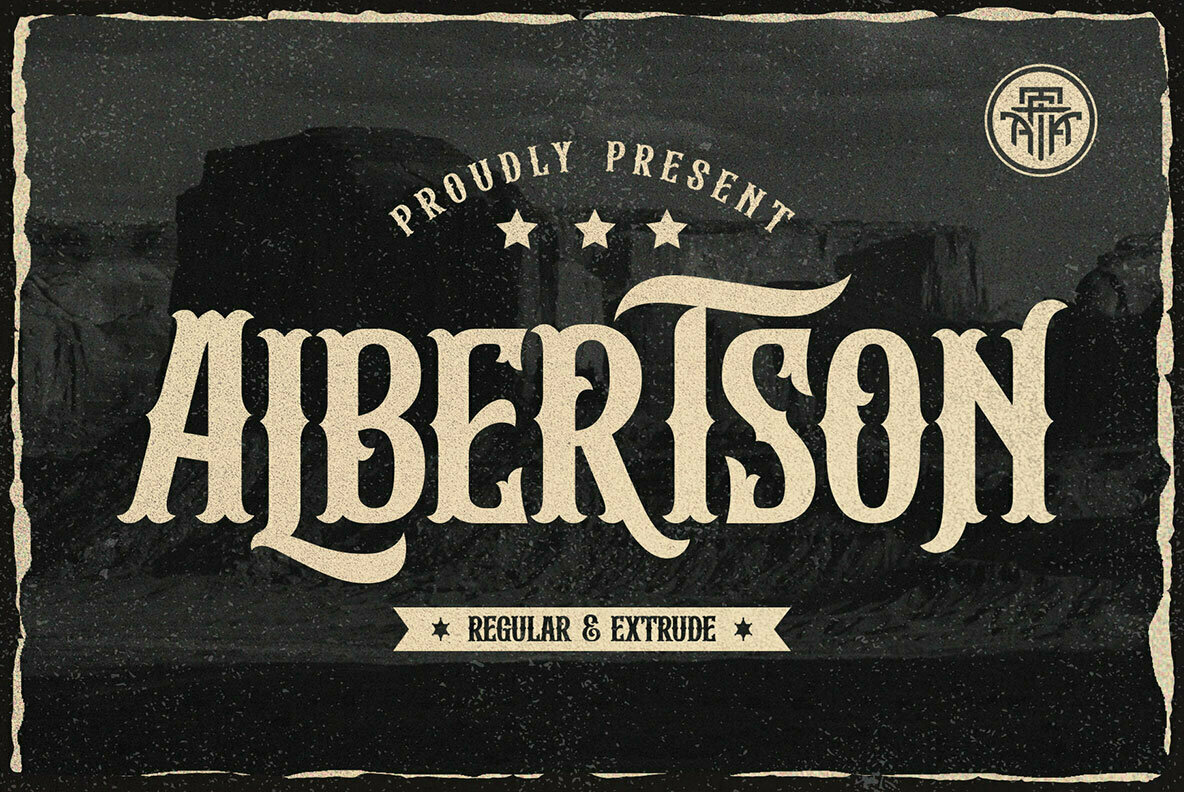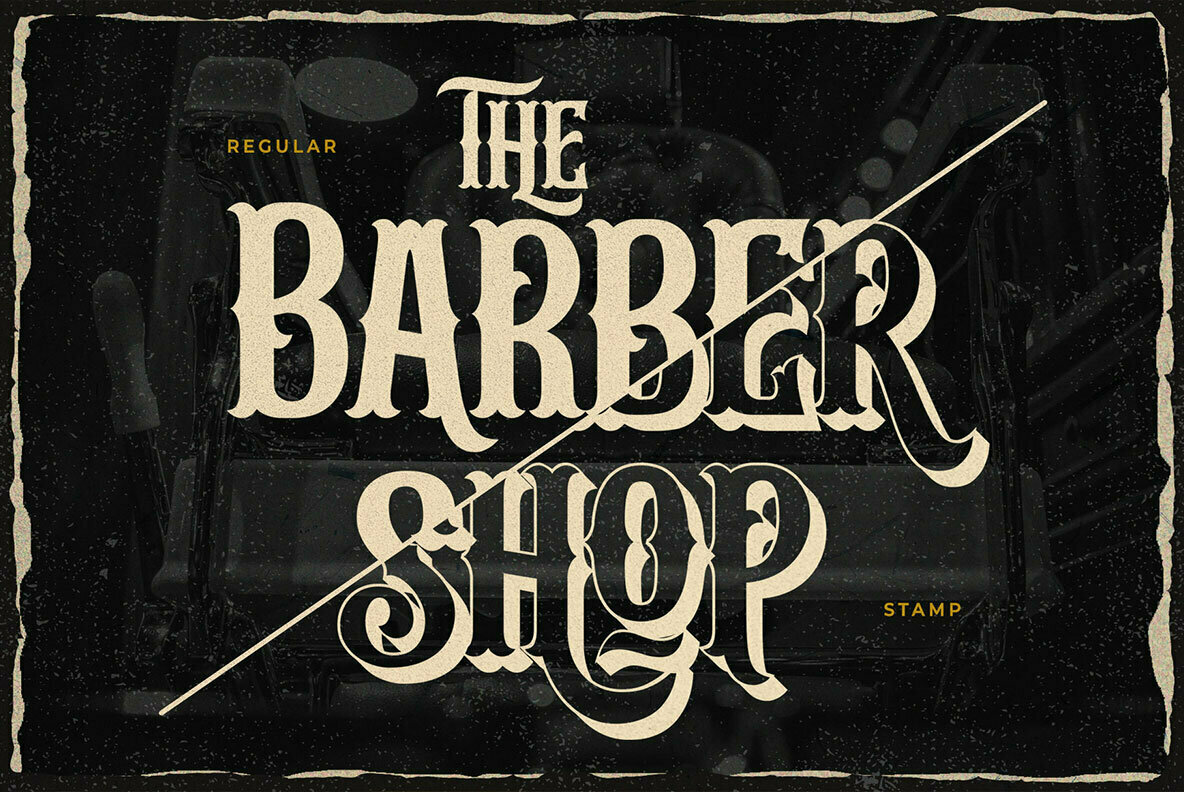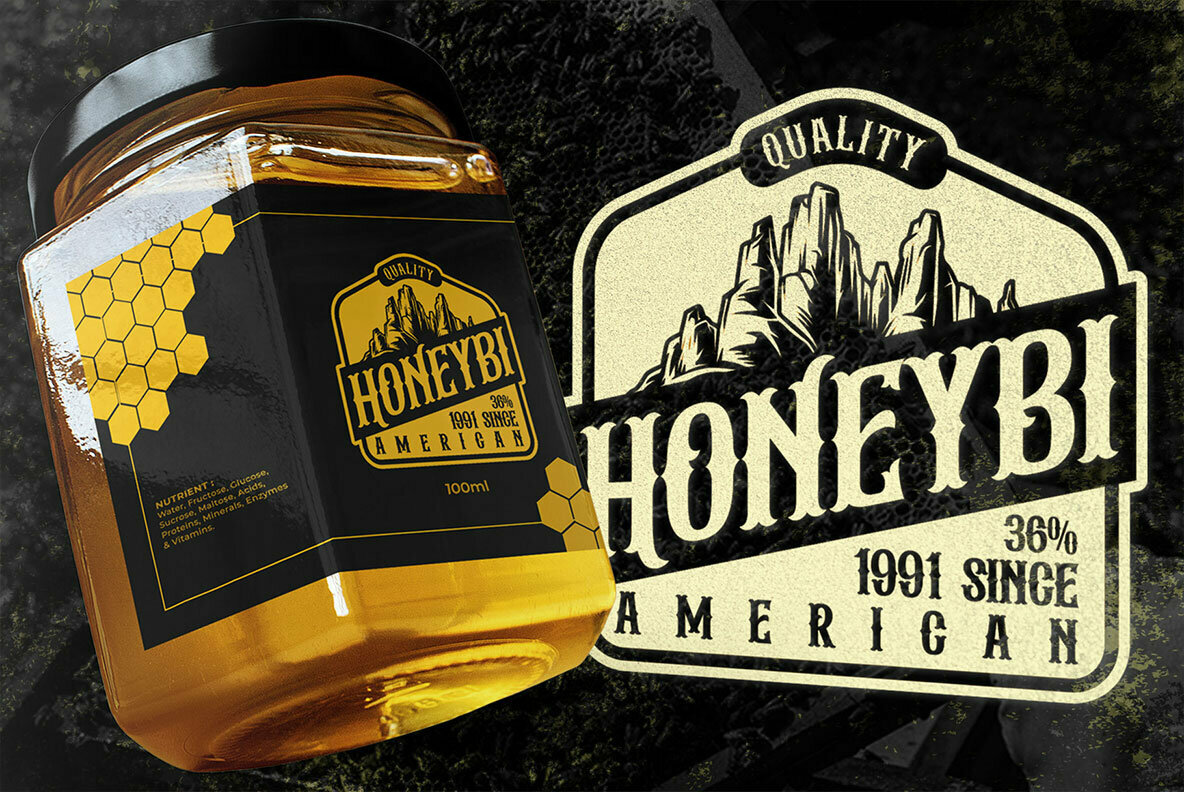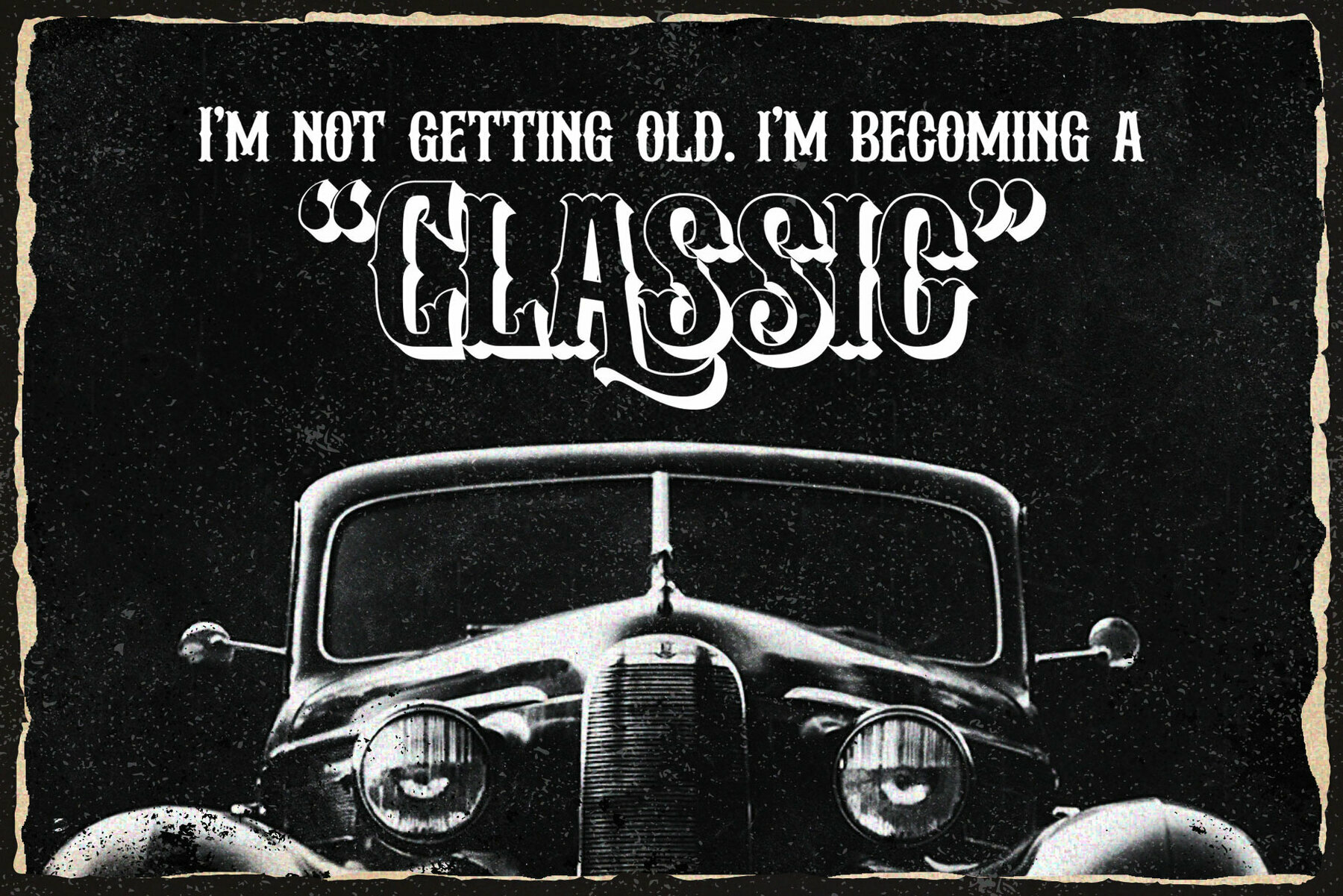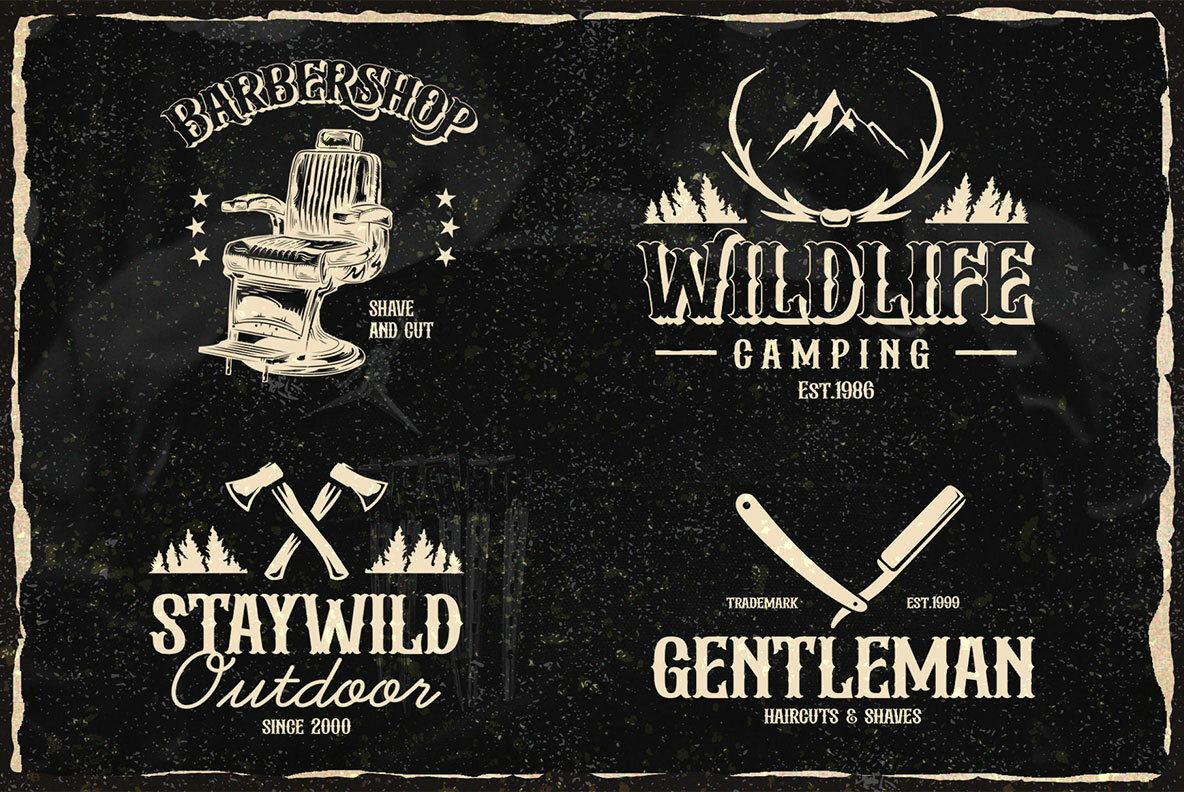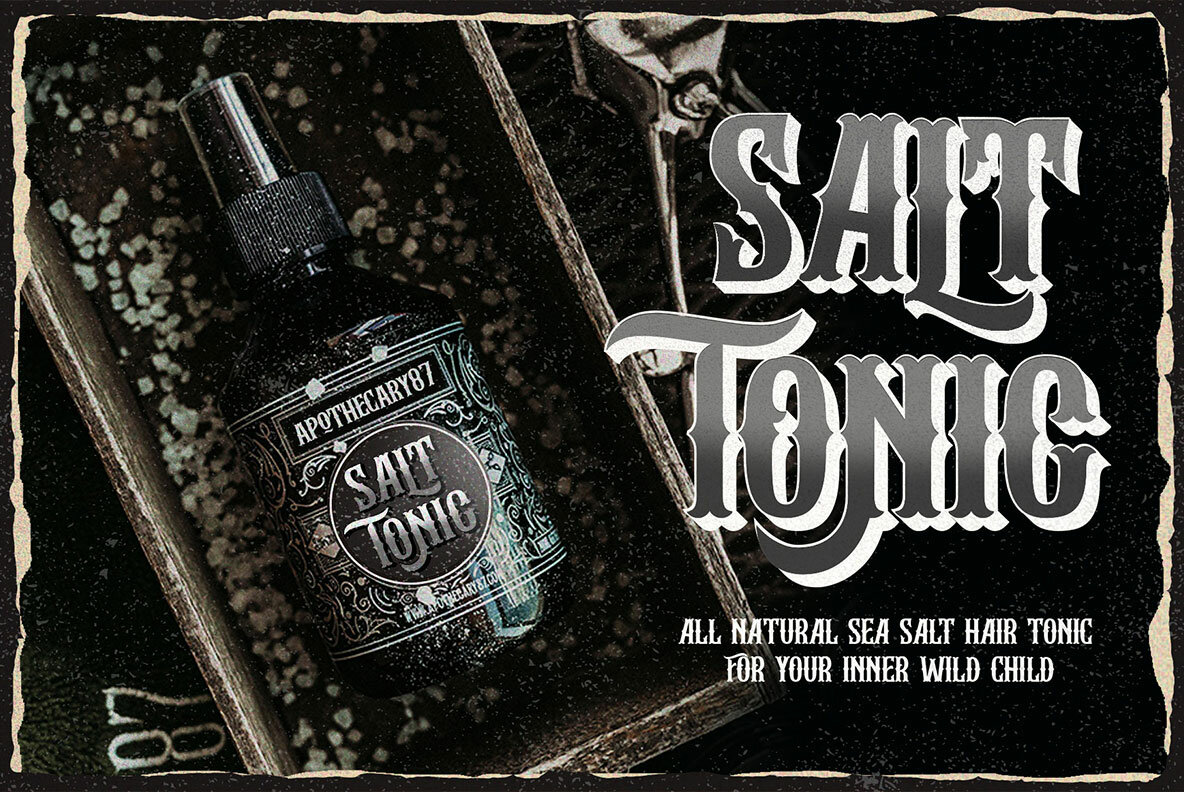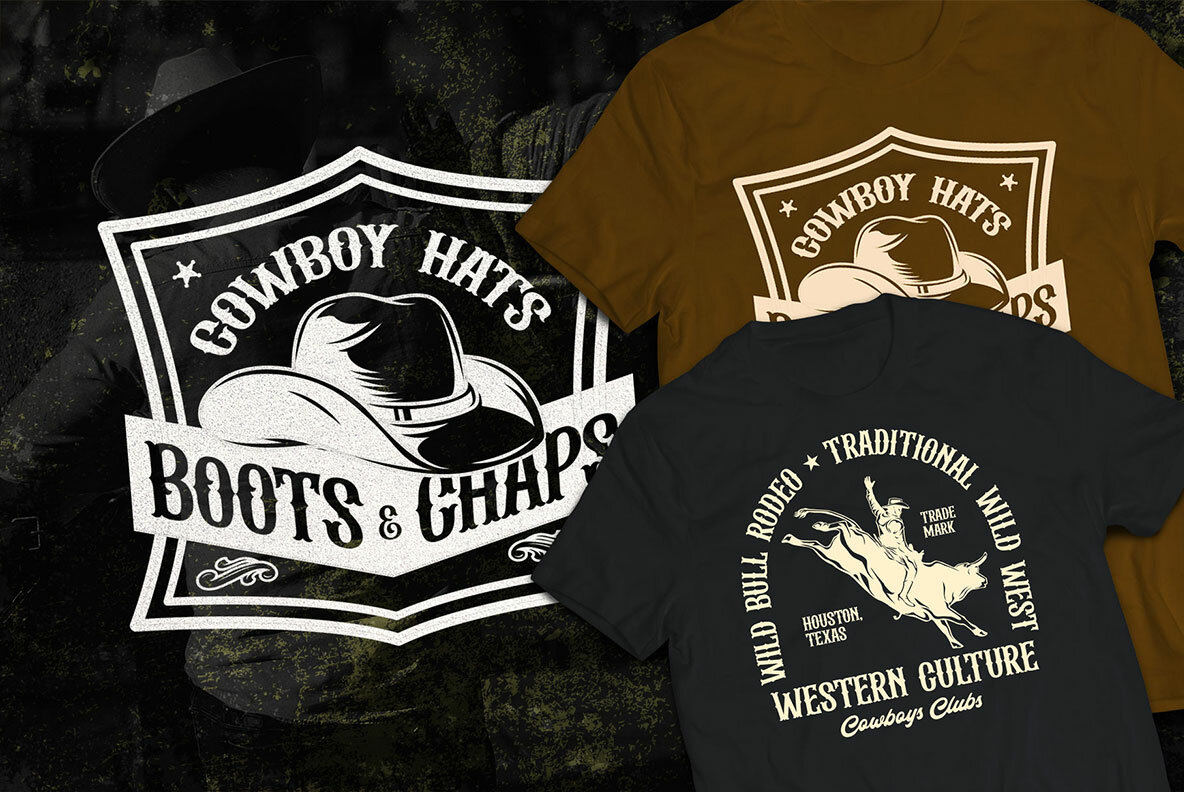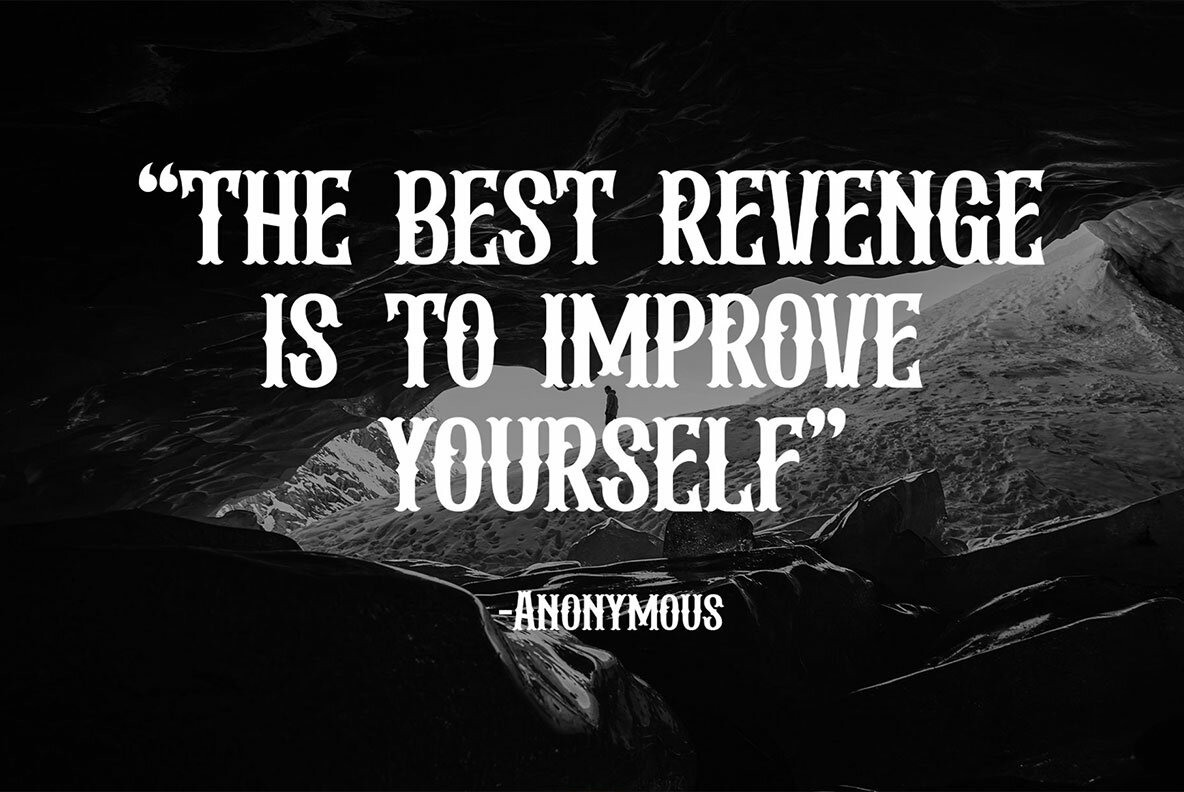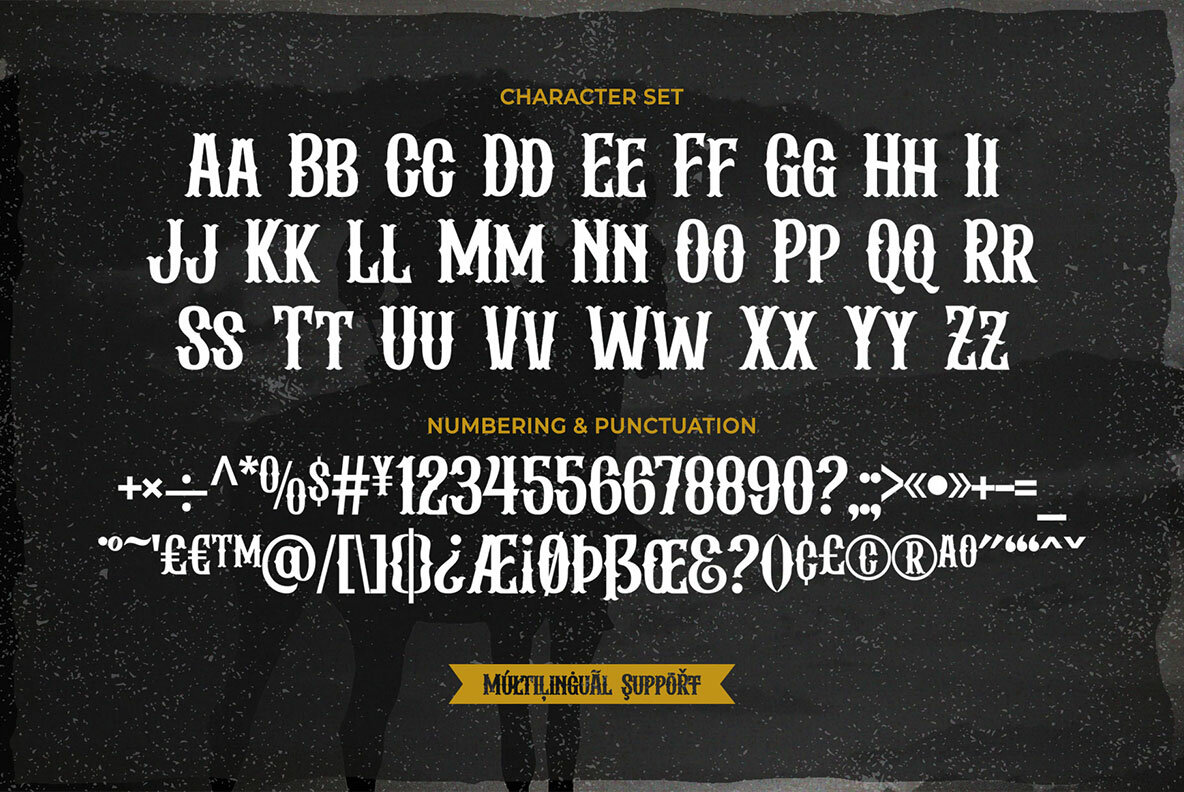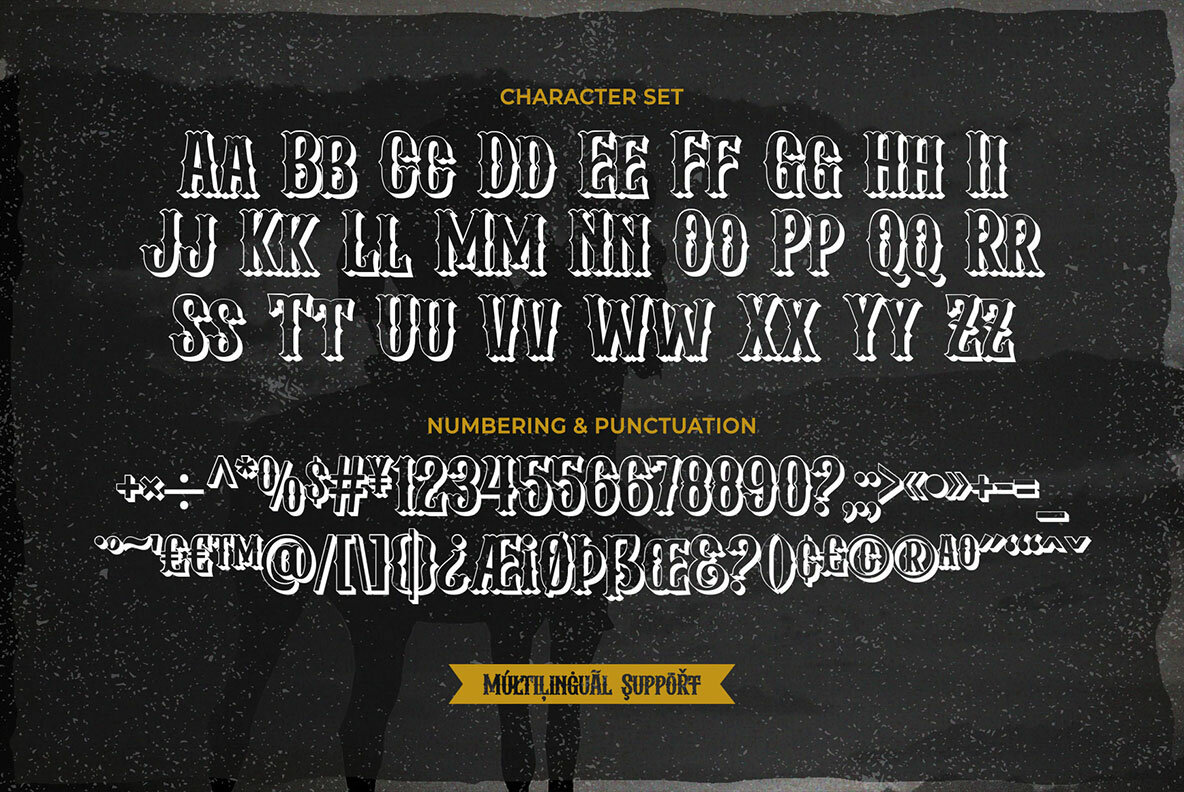
Albertson Font
Albertson captures the essence of vintage design with a robust retro aesthetic inspired by classic elements such as old-school automotive signage, cowboy motifs, lumberjack culture, and DIY craftsmanship. This modern western font is perfect for creating logos, logotypes, labels, and packaging that exude a timeless appeal. Albertson is an ideal choice for those looking to infuse a classic yet modern touch into their graphic design projects.Albertson: Bold Retro Typography with a Modern Edge